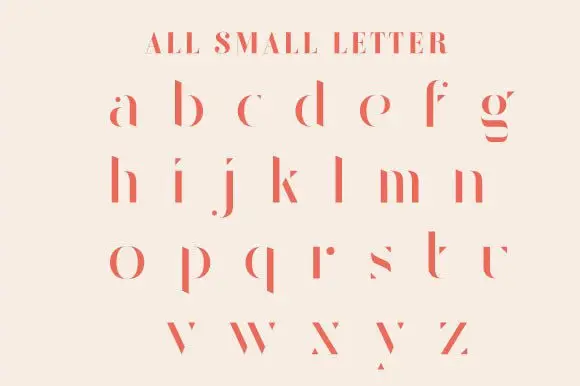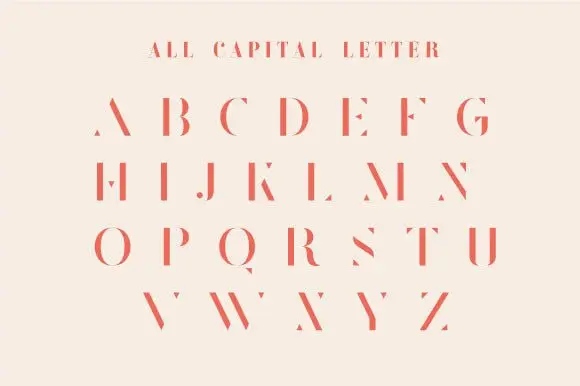
The Barbour Sample Font is a beautifully crafted typeface that combines elegance with versatility. Designed for both digital and print applications, it features a range of styles and weights that cater to various design needs.
- Multiple weights for flexibility in design
- Stylish uppercase and lowercase letters
- Numerous special characters and glyphs
Ideal for branding, logos, web design, and print materials, the Barbour Sample Font adds a touch of sophistication to any project.
Barbour Sample Font